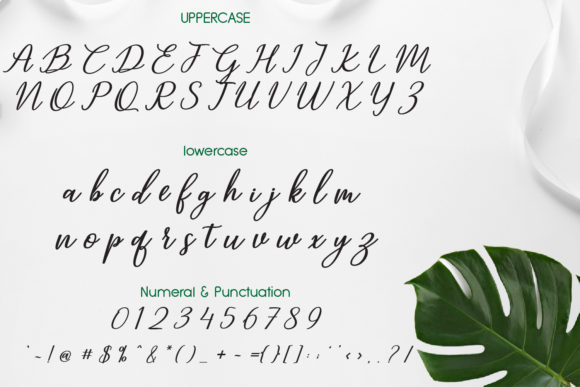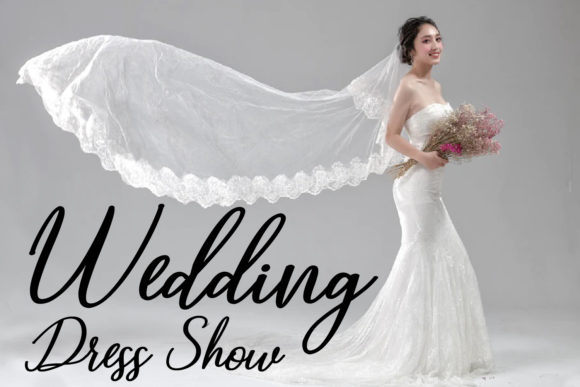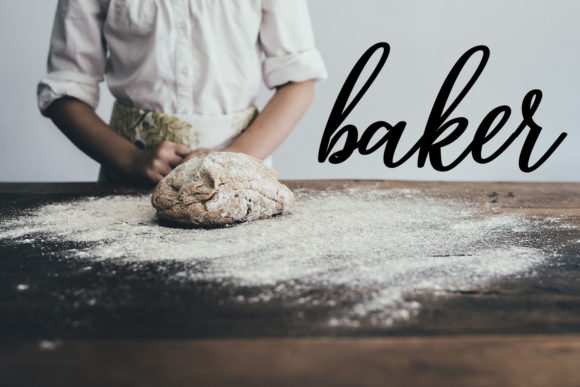
Introduction to Ningaloo Font
Do you remember the moment when you stumbled upon the perfect font for your creative project? The one that made your design pop and transported you to a world of elegance and sophistication? For many designers, that moment is what makes all the hard work worth it. And today, we’re excited to introduce you to one such game-changing font – the Ningaloo Font.
With its stylish and incredibly elegant handwritten style, the Ningaloo Font is perfect for adding a personal touch to your wedding invitations, thank you cards, quotes, greeting cards, logos, business cards, and more. Its PUA encoded feature ensures that you can access all of the glyphs and swashes with ease, making it a valuable addition to your design resource library.
Honest Review: Ningaloo Font
I recently had the chance to work with the Ningaloo Font, and I’m excited to share my honest thoughts on this design resource. Overall, I was impressed with its high quality and versatility.
- ✨ The font’s modern and clean design makes it perfect for a wide range of applications, from logos and branding to web and print materials.
- ⚠️ The font’s limited character set may be a drawback for designers working on projects that require a comprehensive set of glyphs.
- ⚠️ Some users may find the font’s simplicity too minimalist, making it less suitable for projects that require a more ornate or elaborate design.
Overall, I’m impressed with the Ningaloo Font’s potential as a design resource. Its high quality and transparent background make it a great option for designers working on creative projects. While it may have some limitations, I believe it’s a valuable addition to any design library.
The Ningaloo Font is a versatile design resource that can be used in a variety of creative projects, including logos, brochures, and social media graphics. It’s also a great option for creating a transparent background design, which can be easily downloaded and used in a variety of design applications.